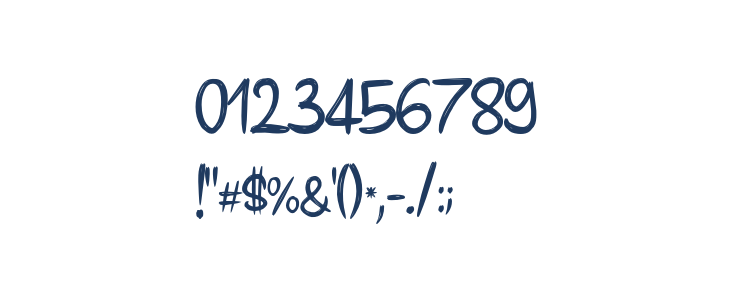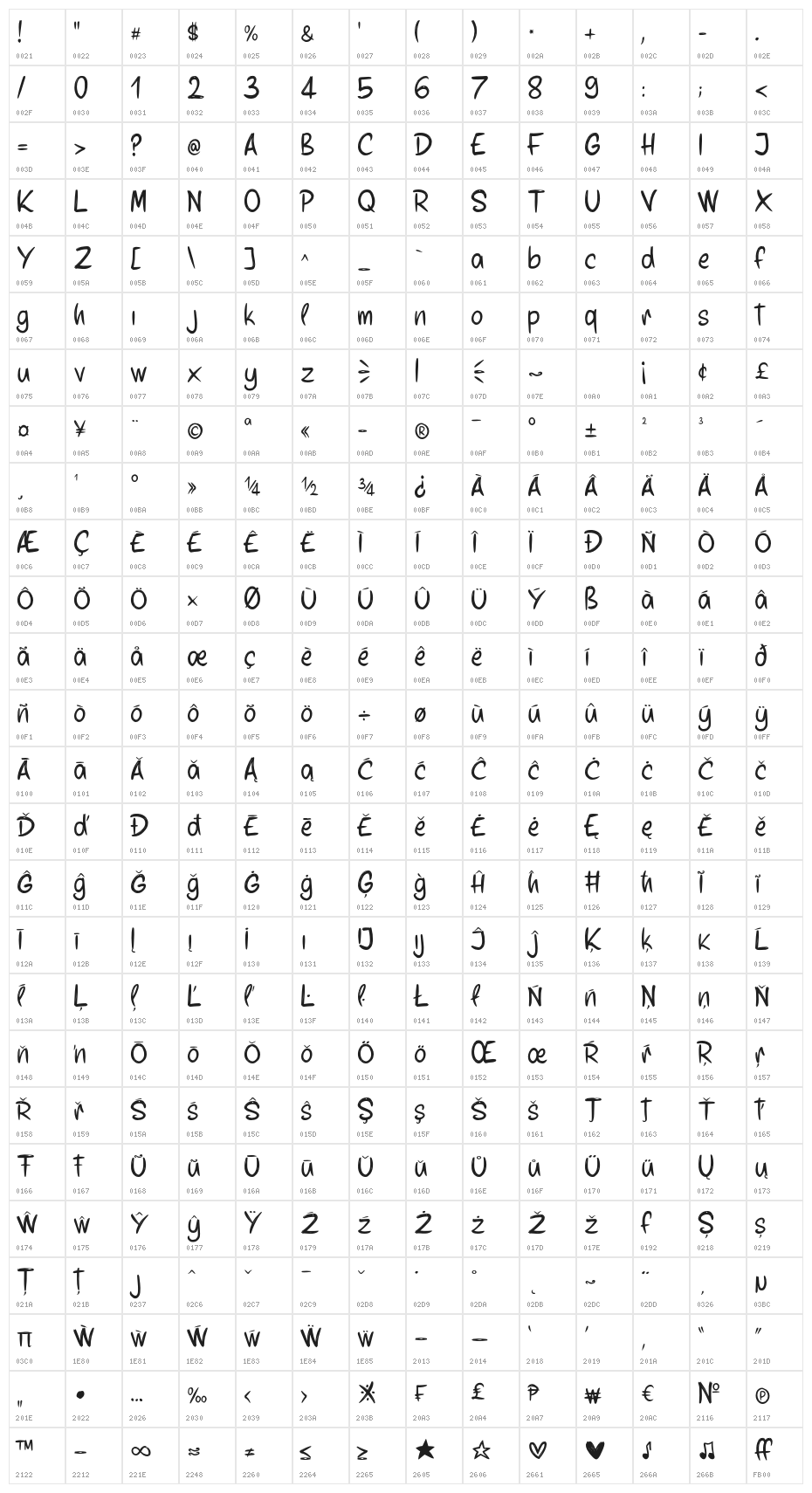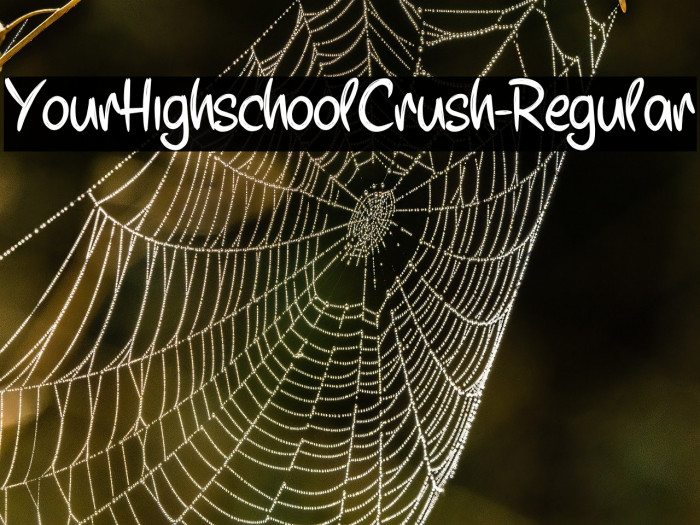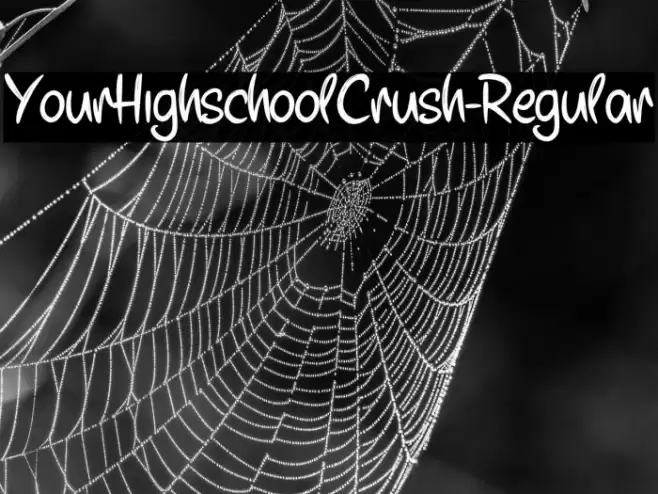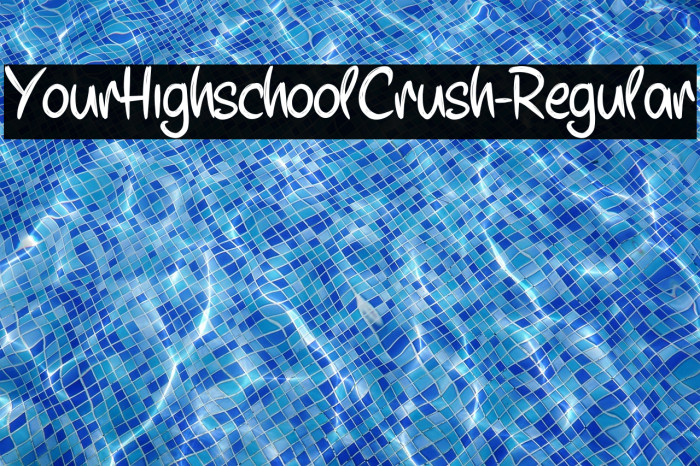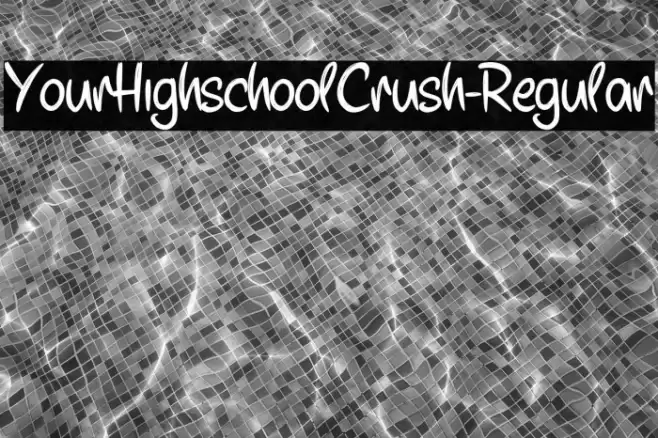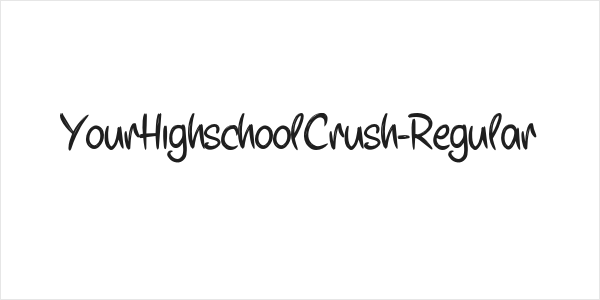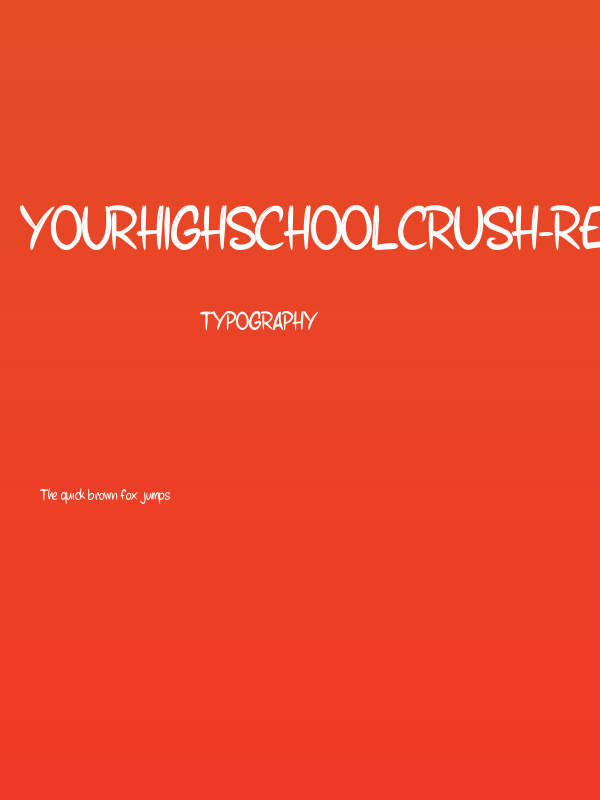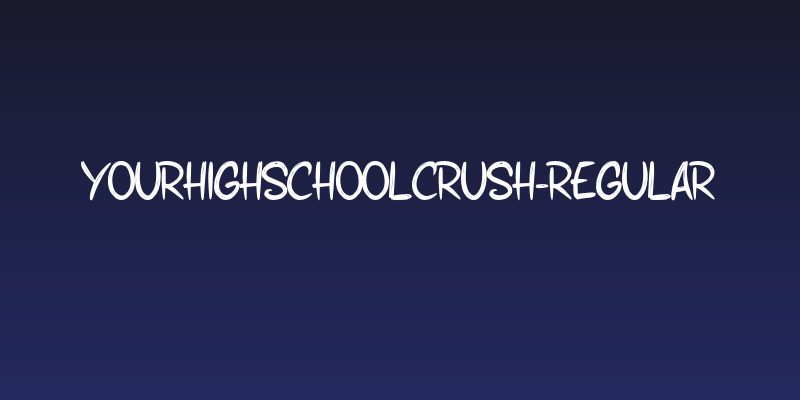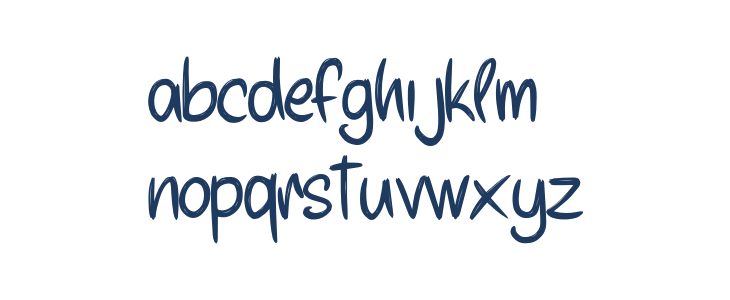
YourHighschoolCrush-Regular Font
YourHighschoolCrush-Regular Description
This font exudes a playful and energetic vibe, characterized by its handwritten style that mimics casual, free-flowing penmanship. The letters are bold and slightly slanted, giving them a dynamic appearance. The strokes are uneven, adding to the informal and spontaneous feel. Uppercase and lowercase letters maintain a consistent style, with rounded edges and a slight tilt. Numbers and special characters follow the same aesthetic, ensuring a cohesive look across all text. This font is perfect for projects that require a personal touch or a sense of fun and creativity.
| Overall Style | Playful, Casual |
| Proposed Projects | Ideal for greeting cards, playful branding, social media graphics, and informal invitations. |